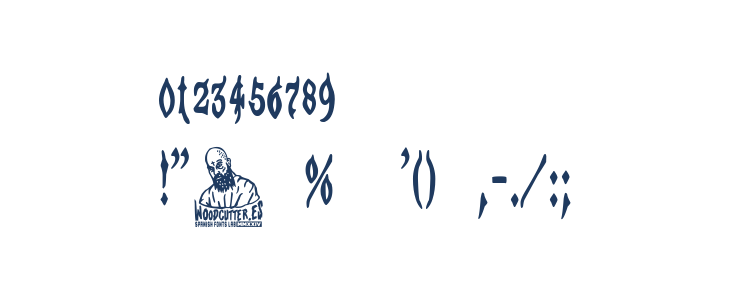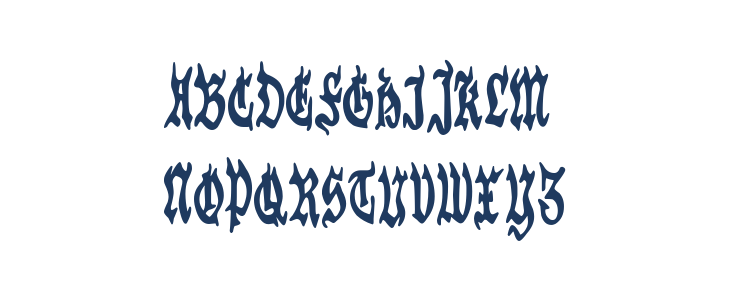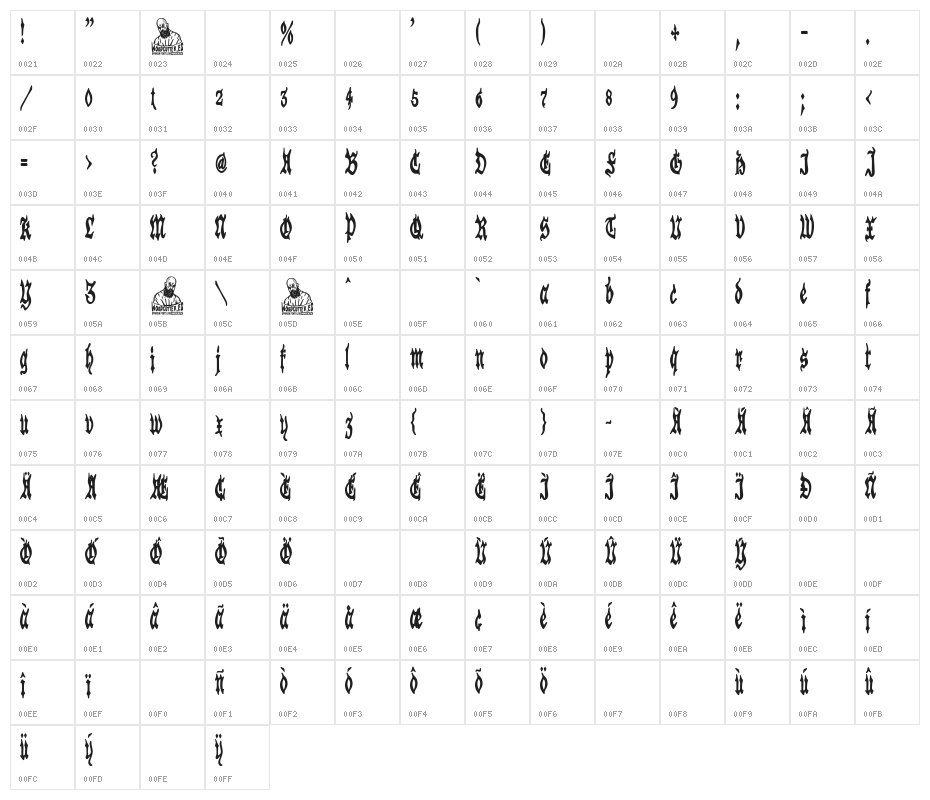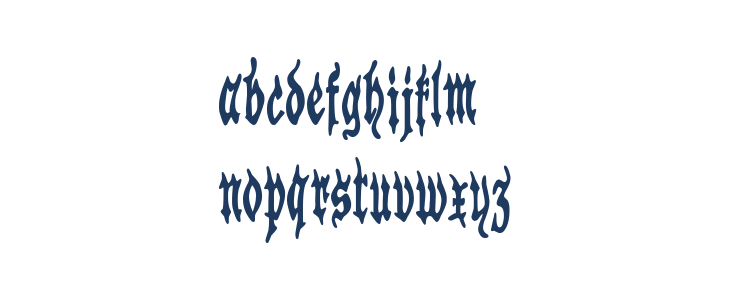
Austrian Hotel Font
Austrian Hotel Description
A highly ornamental, angular typeface with dramatic strokes and pointed serifs, reminiscent of traditional blackletter or Gothic calligraphy. The characters feature sharp edges, high contrast between thick and thin lines, and elaborate flourishes, giving the font a historic and authoritative appearance.
Overall StyleDecorative, Vintage, Gothic